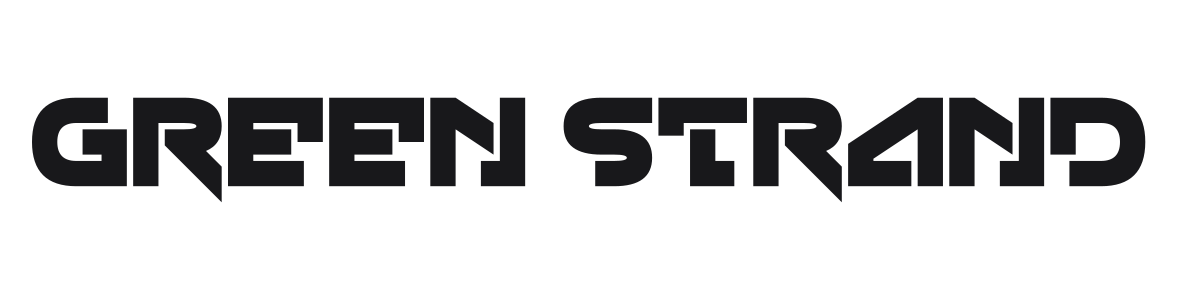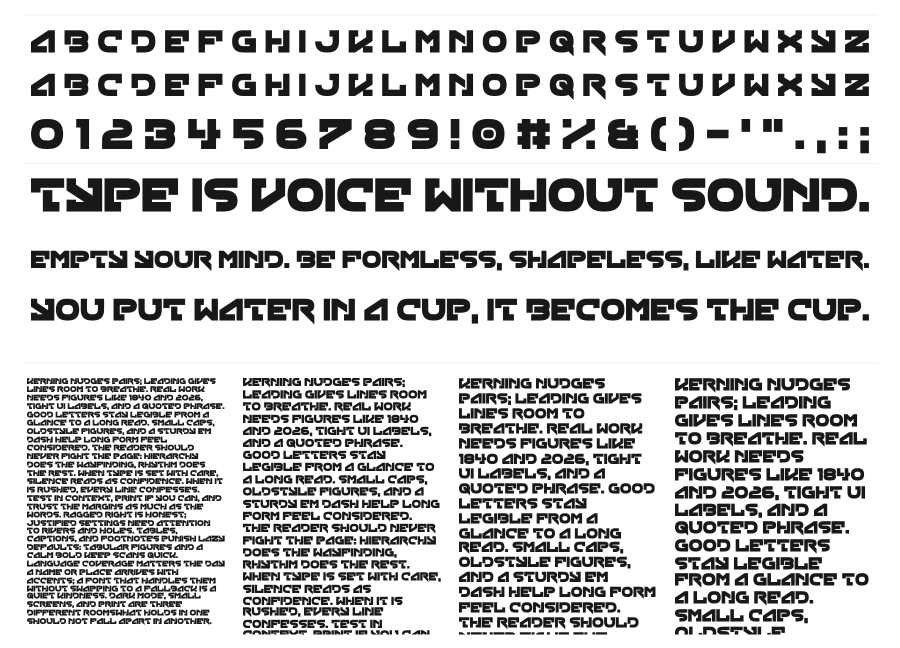
Green Strand
Green Strand is a heavy squared geometric sans with sharp angular cuts and broad, uniform strokes. The diagonal terminal slices give it a distinct mechanical edge that sets it apart from standard techno fonts. It commands attention in titles, game interfaces, and any context that needs a hard, industrial presence.